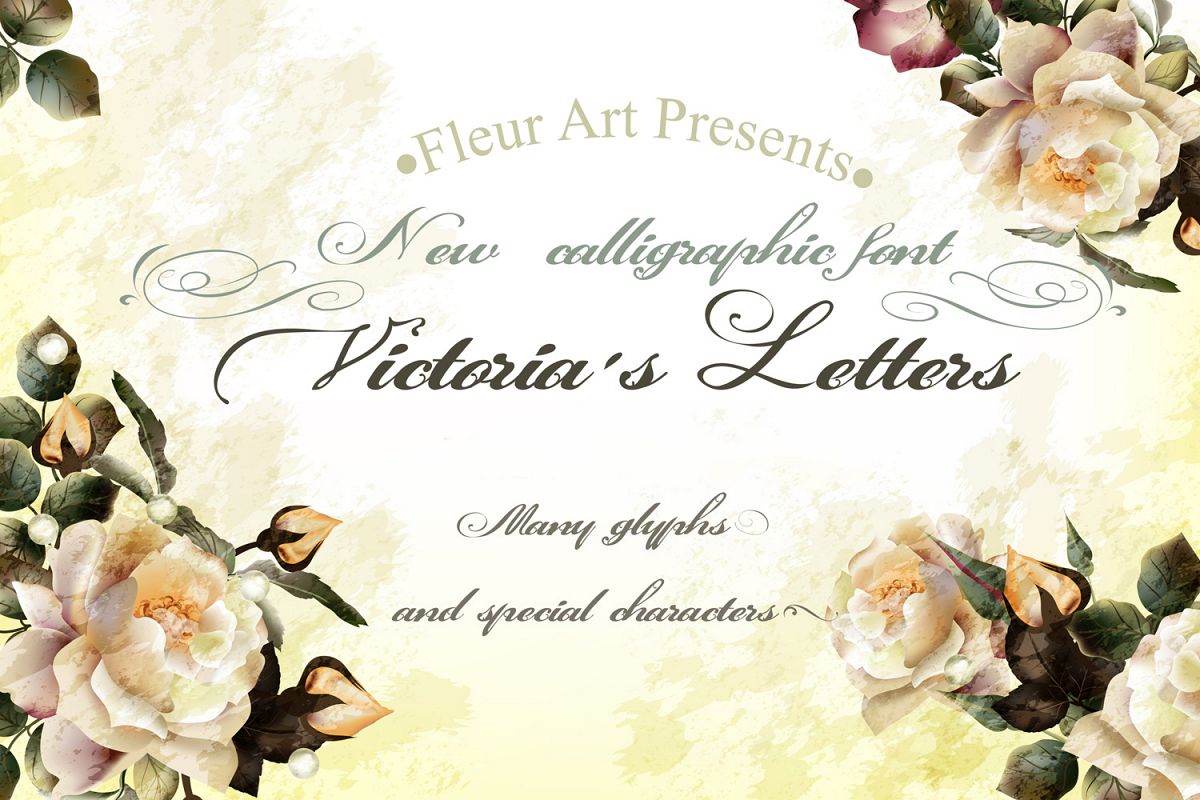
Victorias letters. New calligraphic font
Victoria'sletters-Regular
Victoria’s letters is hand drawn vintage styled script font for
authentic designs. Ideal for invitations, wedding designs and any other
vintage and simply beautiful projects.
Inspired by different vintage hand lettering of XIX centuries.
Drawn carefully and fully by me on a tablet in Adobe Illustrator for you (not traced).
Smooth lines.
Many glyph symbols (See it all on a second preview).